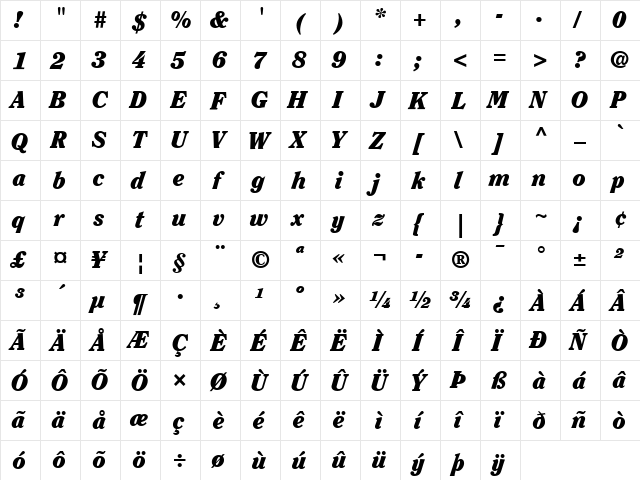
Clearface LT Bold Bold Italic Font Preview
Design Context for Clearface LT Bold Typeface
Clearface LT Bold takes a measured approach to typography — its balanced proportions and neutral character make it a reliable workhorse for both digital and print work. Its italic angle brings a sense of urgency and motion to the letterforms. Its bold stroke weight gives it real presence on the page.
Pro Tip: Try Clearface LT Bold for annotation and caption copy alongside an upright companion — the contrast in angle creates a dynamic but ordered typographic system.